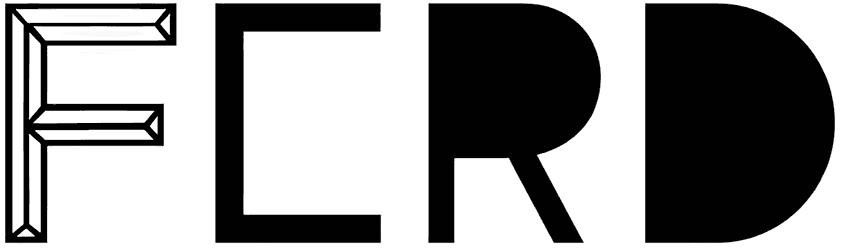
Ferd Font
To make your words catchier, you can use a special outward. This typography font, named Ferd, with its geometric and graphic form, can make words attractive. Even though this modern font doesn’t have a backup of lowercase letters, numerals, or punctuation marks, it would be a nice pickup for a lot of items, namely titles, wordmarks, logos, and the like.